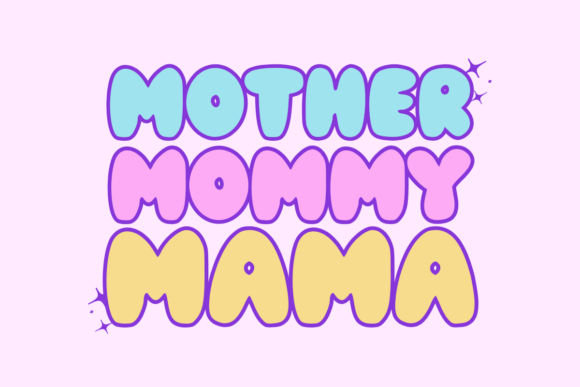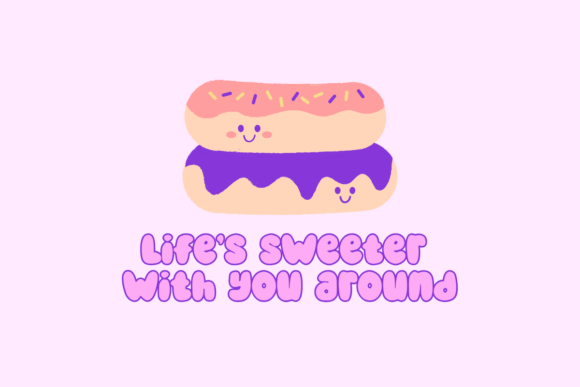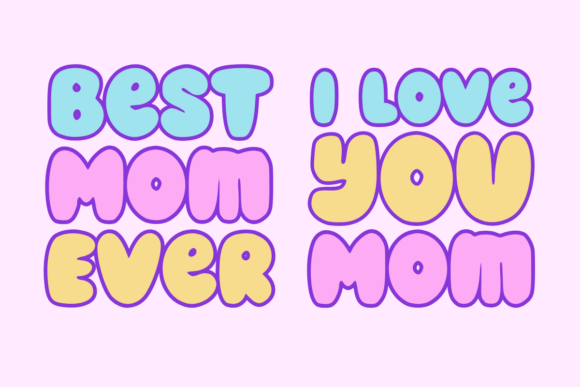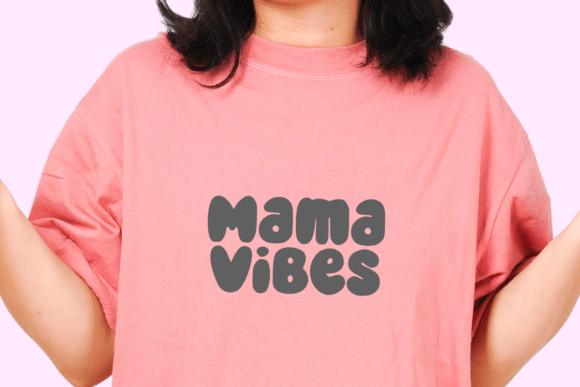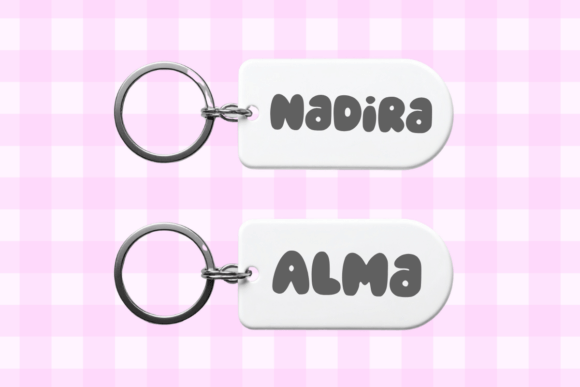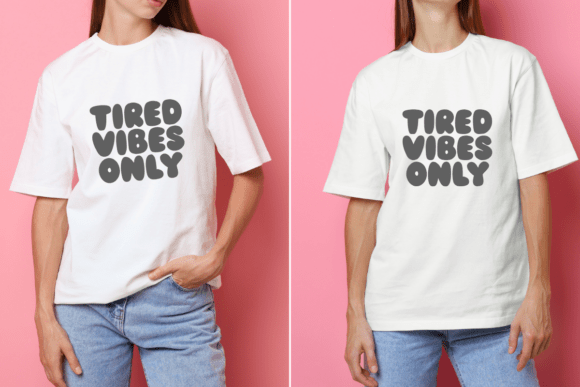
Introduction to Mother Summer Font
Have you ever stumbled upon a font that instantly sparks a wave of creativity and nostalgia? For many designers, this moment is like finding a hidden treasure – it’s a game-changer. I had this exact experience when I discovered the Mother Summer Font. Its charming retro vibe is like a breath of fresh air, making it an ideal choice for a wide range of creative projects.
As a designer, I can attest that having a reliable design resource like the Mother Summer Font is invaluable. Not only does it add a touch of personality to your Cricut projects, logos, or t-shirts, but it also provides a unique aesthetic that sets your designs apart. With its free download option and transparent background, you can easily incorporate this font into your SVG files, planners, stickers, or social media content.
Key Features of Mother Summer Font
- High-quality design resource ideal for creative projects and digital designs.
- Includes a transparent background, allowing for seamless integration into various designs.
- Features a unique, hand-drawn style that adds a personal touch to any design.
Honest Review: Mother Summer Font
I recently came across the Mother Summer Font, and I must say it’s a lovely addition to any creative project. As a designer, I appreciate high-quality design resources, and this font delivers. The free download option is a definite plus, especially for smaller projects or personal use.
- What works well: ✨ The Mother Summer Font has a clean and elegant design, perfect for creating visually appealing headers and titles. The transparent background option is also a great feature, allowing for easy layering and customization.
- What works well: ✨ The font is highly versatile and can be used in a variety of contexts, from wedding invitations to branding materials.
- ⚠️ The font may not be suitable for very small text sizes, as the letters can become difficult to read.
- ⚠️ Some users may find the font too minimalist, lacking in character or personality.
Overall, I’m quite impressed with the Mother Summer Font. It’s a solid choice for designers looking for a high-quality, free font that can add a touch of elegance to their creative projects. With its transparent background and versatile design, it’s definitely worth considering as a design resource.
The Mother Summer Font is suitable for a variety of creative projects, including blog posts, social media graphics, and marketing materials. Its high-quality design and transparent background make it a versatile design resource for any project.